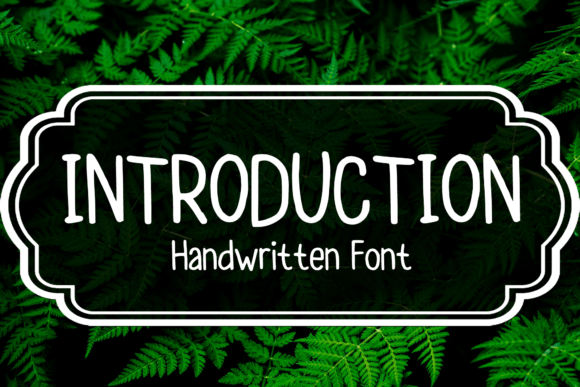
Meet Your New Favorite Font: Introduction Font
Have you ever sat down with a blank sheet of paper, a pen in hand, and a burst of creative energy flowing through you? That’s the moment when ideas start to flow, and the possibilities seem endless. For designers, this feeling is what drives them to create something truly special. And that’s exactly where the Introduction Font comes in – a casual, handwritten font that’s perfect for adding a touch of personality to your designs.
This versatile font is ideal for a wide range of projects, from t-shirts and book designs to restaurant menus and blog writing. Its unique style makes it stand out from the crowd, giving your designs a cool and relaxed vibe that’s sure to capture attention. Whether you’re a seasoned designer or just starting out, the Introduction Font is a valuable addition to your toolkit, offering endless opportunities for creativity and self-expression.
Key Features of Introduction Font
- Font Family: Introduction Font is a sans-serif typeface, designed for modern and clean typography.
- Font Size: Introduction Font is designed to be highly legible at various font sizes, ranging from 8pt to 24pt, making it suitable for body text, headings, and titles.
- Resolution: Designed to be crisp and clear at resolutions up to 300 DPI (Dots Per Inch), ensuring it looks great on both digital and print media.
- Unique Characteristics: Introduction Font features a unique blend of geometric and organic shapes, giving it a distinctive and modern feel. The font also includes a range of ligatures and alternates to add visual interest.
- Font Style: Available in Regular, Bold, Italic, and Bold Italic weights, providing flexibility for designers to create a range of visual effects.
Introduction Font Review
Overall, I think the Introduction Font is a decent choice for everyday use. ✨ It’s clean, easy to read, and doesn’t overpower the content. The font’s versatility makes it suitable for a wide range of applications, from body text to headings.
- The font’s legibility is a major plus, making it perfect for long-form content or texts where readers need to focus for an extended period.
- ✨ The font’s neutral tone helps it blend in with the surrounding design, which can be beneficial for projects where a bold statement isn’t necessary.
- ✨ The font’s subtle flair in the letterforms adds a touch of sophistication without overpowering the content.
However, there are some limitations to consider: ⚠️ The font may not be the best choice for projects where a strong, attention-grabbing headline is required. ⚠️ Additionally, the font’s simplicity may not be ideal for creative or artistic applications where a more unique or expressive font is needed.
Overall, I think the Introduction Font is a solid choice for everyday use, but it’s not a one-size-fits-all solution. With its clean design and versatility, it’s a great option for projects where simplicity and readability are key.
The introduction font is best used for headings, titles, and subtitles that need to grab the reader’s attention.
Use bold and italic styles to add emphasis and create visual interest.
Experiment with different font sizes and colors to create a consistent look and feel across your design.